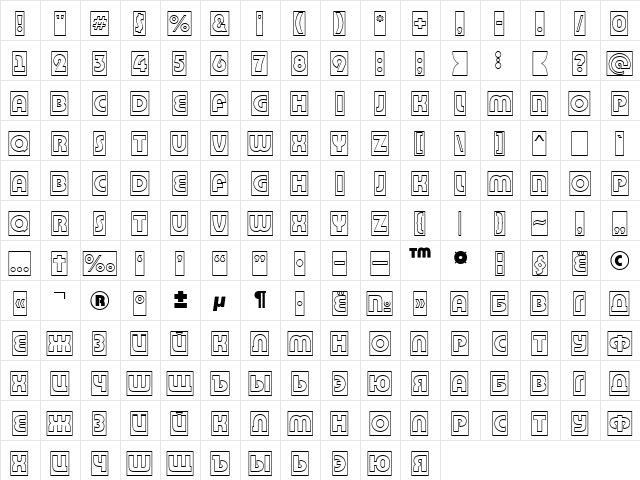
a_BighausTitulCmGr Regular
Design Context for a_BighausTitulCmGr Typeface
a_BighausTitulCmGr takes a measured approach to typography — its balanced proportions and neutral character make it a reliable workhorse for both digital and print work.